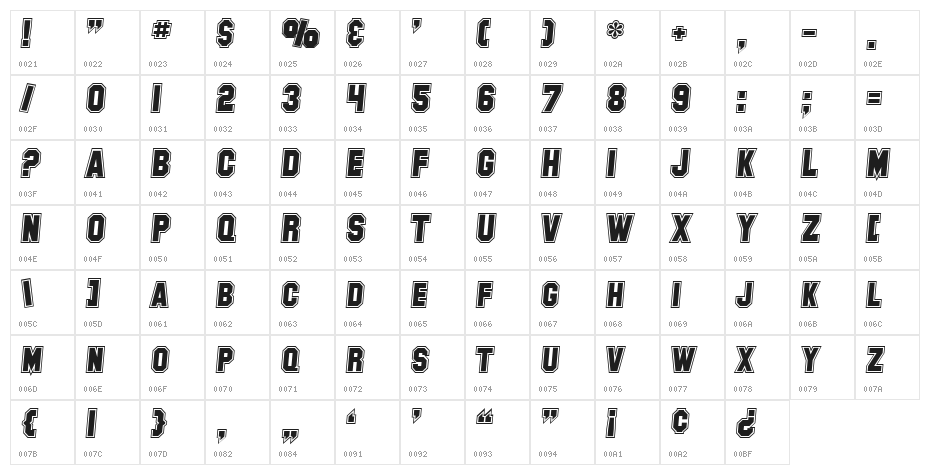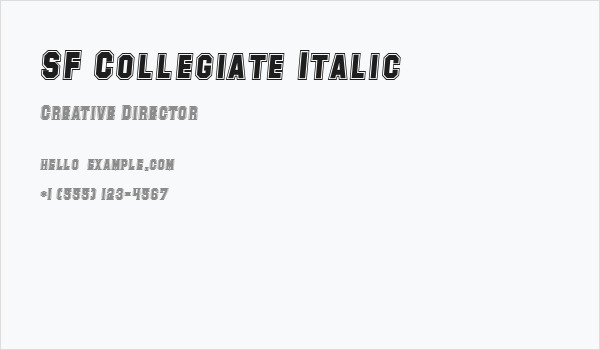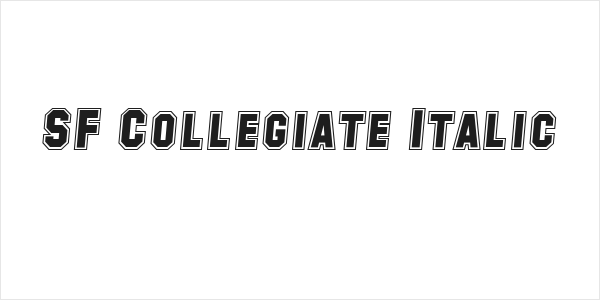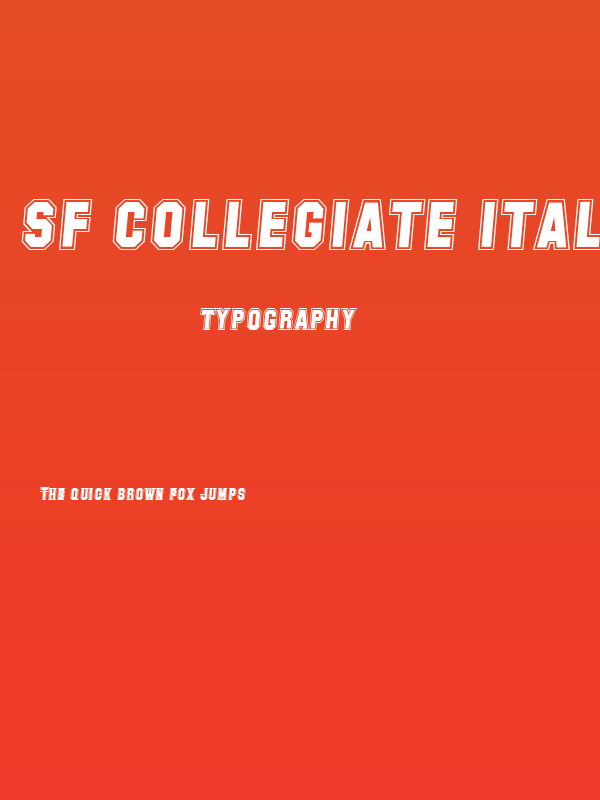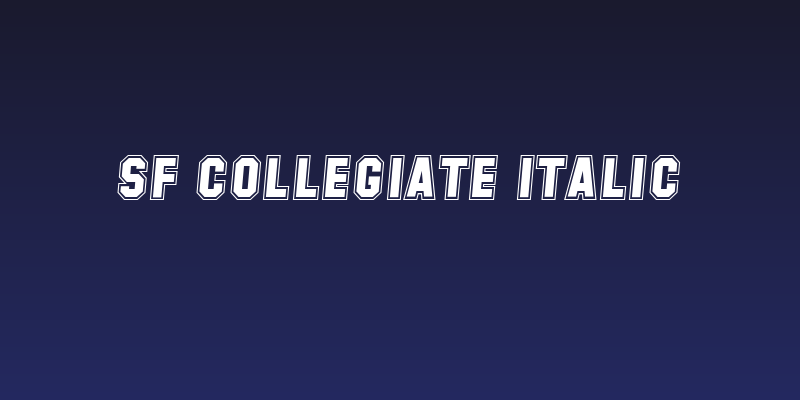
SF Collegiate Italic Font
SF Collegiate Italic Description
This font features a bold, italicized style with a strong collegiate or varsity aesthetic. The characters are outlined, giving them a three-dimensional effect that enhances their boldness. Each letter is capitalized, with sharp angles and a blocky structure that conveys strength and tradition. The numbers and special characters maintain this robust style, making the font suitable for impactful and attention-grabbing designs. The italic slant adds a dynamic feel, while the outlined nature provides a sense of depth and prominence.
| Use Case | Logos, Headlines |
| Proposed Projects | Ideal for sports team logos, college-themed apparel, event posters, and banners. |